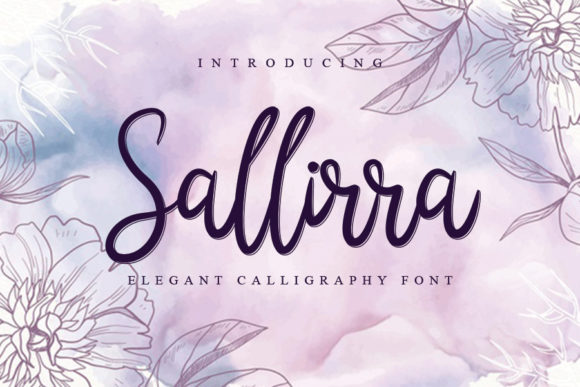
Enchant your designs with Sallirra Font, a graceful script adorned with delicate strokes and elegant curves. Its mesmerizing flow will captivate all who behold it.
Indulge in the versatility of Sallirra, tailored to elevate your creations. From enchanting wedding invitations that evoke a touch of romance to captivating social media posts that demand attention, this font weaves its magic effortlessly.
Unleash your creativity with Sallirra's boundless possibilities. Its ethereal nature invites you to craft exquisite stationary art, adding a touch of artistry to your everyday correspondence. Transform your digital canvas into a visual masterpiece, where Sallirra's allure shines through.
Embrace the beauty of Sallirra, a font that will ignite your passion for design. Its timeless elegance will leave an unforgettable mark on all who experience its charm, making it the perfect companion for your most treasured projects.